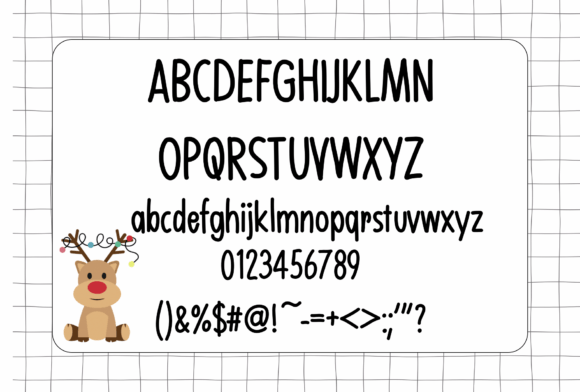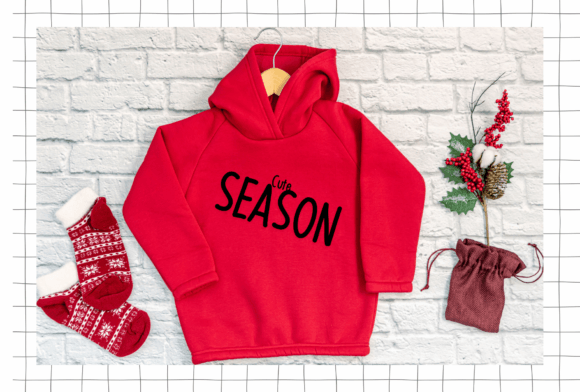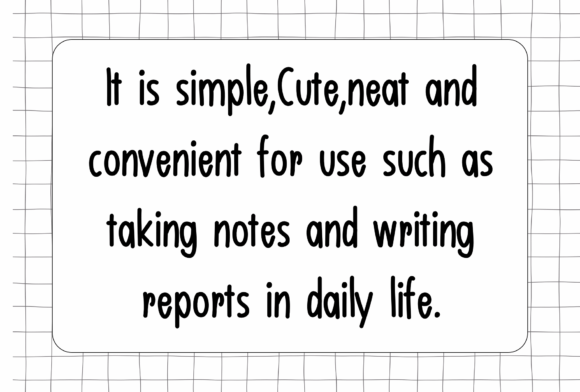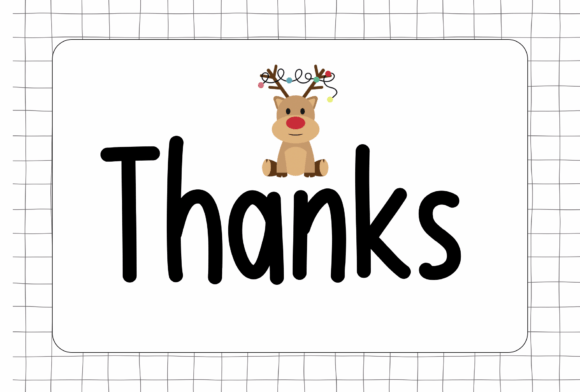
Get Ready to Sleigh the Holiday Season with Christmas so Cute Font
As I sit by the fireplace, surrounded by twinkling lights and the scent of pine, I find myself in a creative rut. The blank page stares back at me, and I’m desperate for inspiration. That’s when I stumble upon the perfect solution – a font that captures the essence of the holiday season. Enter Christmas so Cute Font, a cozy handwritten font that feels warm and festive, perfect for adding a personal touch to holiday cards, decorations, and invitations.
This font is a treasure trove for designers, offering a unique and playful way to express the joyful spirit of Christmas. With its soft and endearing letters, it’s the perfect tool to create a memorable holiday experience. Whether you’re a seasoned designer or a DIY enthusiast, Christmas so Cute Font is sure to bring a smile to your face and a touch of magic to your creations.
- Unique Characteristics: Whimsical, hand-drawn design with a playful feel, ideal for festive and holiday-themed projects
Designer Review: Christmas so Cute Font
Overall, I think the Christmas so Cute Font has some nice touches, but it’s not without its limitations.
- It has a charming, playful feel that’s perfect for holiday projects.
- The font is highly customizable, with a wide range of color options and layout settings.
- The font is quite limited in terms of character set, which may make it difficult to use for more complex projects.
- Some of the characters may look a bit pixelated or rough around the edges, which could be a problem for certain designs.
- The font is not ideal for large blocks of text, as it can be difficult to read at larger font sizes.
Overall, I think the Christmas so Cute Font is a great choice for simple holiday projects, but may not be the best fit for more complex designs or larger text blocks. It’s a fun and playful font that’s sure to add some festive flair to your projects, but be mindful of its limitations.
Alternatives to Christmas so Cute Font for Designers
Jingle Belle
Jingle Belle is a playful and elegant font perfect for creating festive and whimsical designs. It features a mix of script and sans-serif elements, making it suitable for titles, headings, and short paragraphs. When to use: Jingle Belle is ideal for invitations, greeting cards, and social media posts that need a touch of sophistication and playfulness.
Comparison to Christmas so Cute Font: Jingle Belle has a more refined and elegant look compared to Christmas so Cute Font, which is more cursive and childlike. Jingle Belle is suitable for a wider range of designs, from formal to casual.
Sugar Cookie
Sugar Cookie is a fun and bubbly font that’s perfect for creating a sweet and festive atmosphere. It features a mix of bold and playful elements, making it suitable for titles, headings, and short paragraphs. When to use: Sugar Cookie is ideal for children’s designs, such as coloring books, party invitations, and nursery decorations.
Q: Are there any specific font sizes or resolutions recommended for the best display of the Christmas So Cute Font?
For optimal display, we recommend using font sizes between 12pt and 48pt, and resolutions of 72 dpi or higher. Using high-resolution displays and large font sizes will help preserve the intricate details and charm of the Christmas So Cute Font.